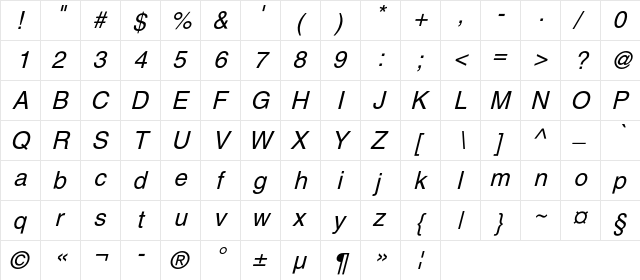
HelgaC Italic
Design Context for HelgaC Typeface
HelgaC is a composed and adaptable typeface that performs quietly and consistently across a wide range of design contexts. The dynamic lean of this cut emphasises speed and emphasis in any layout.
Pro Tip: Try HelgaC for annotation and caption copy alongside an upright companion — the contrast in angle creates a dynamic but ordered typographic system.